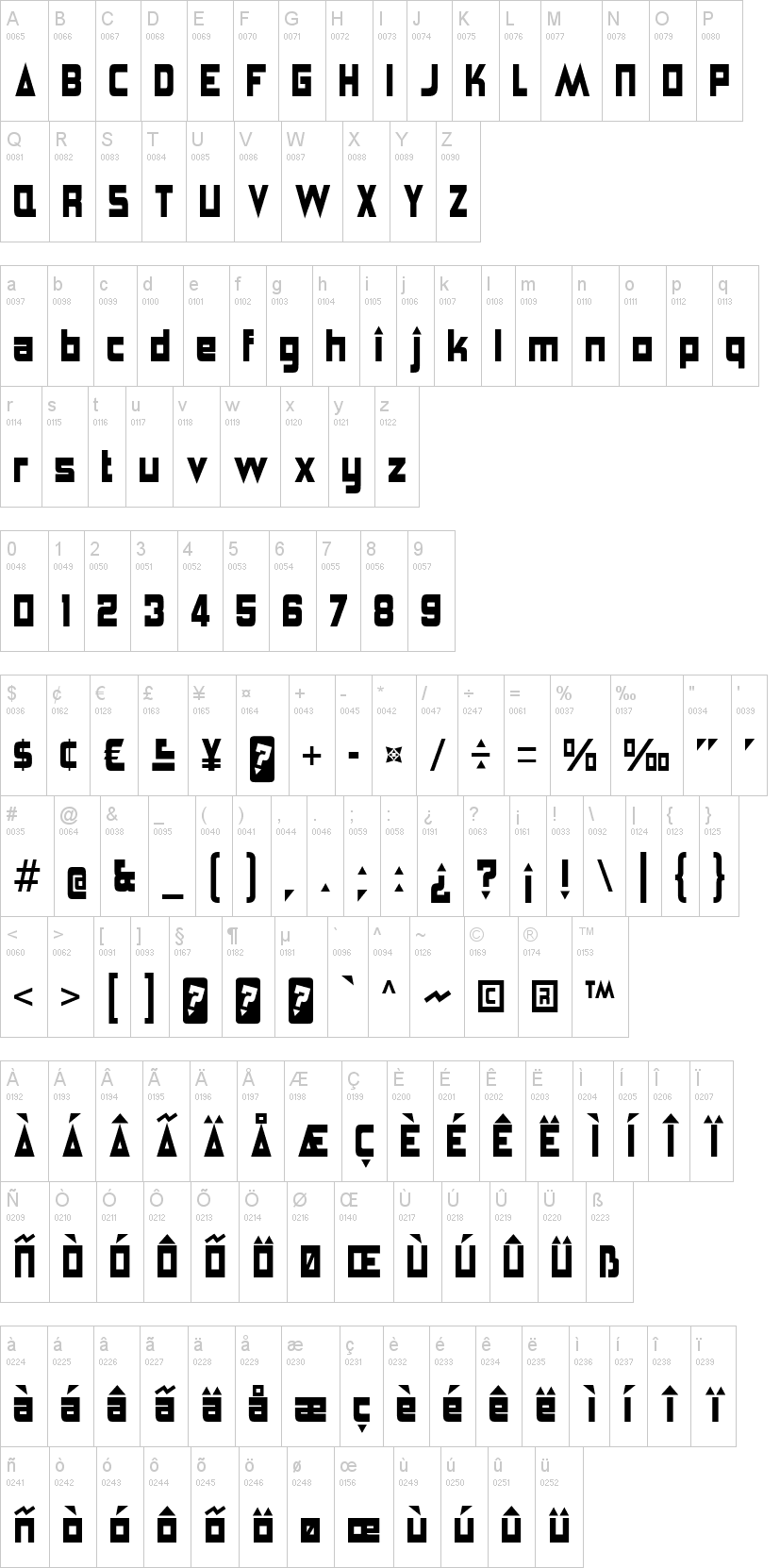
Шрифт Angerpoise Lampshade
Angerpoise Lampshade is an angular hybrid of mid 20th century sign lettering and late 80s computer demo fonts. In OpenType savvy applications you can access the original, strange capital forms.